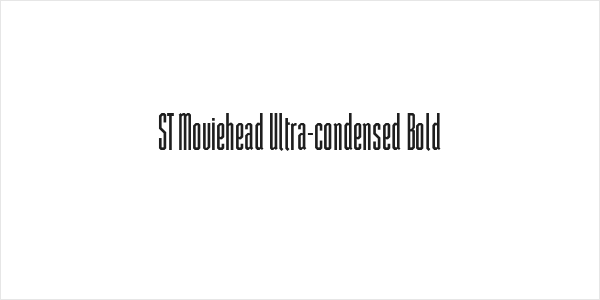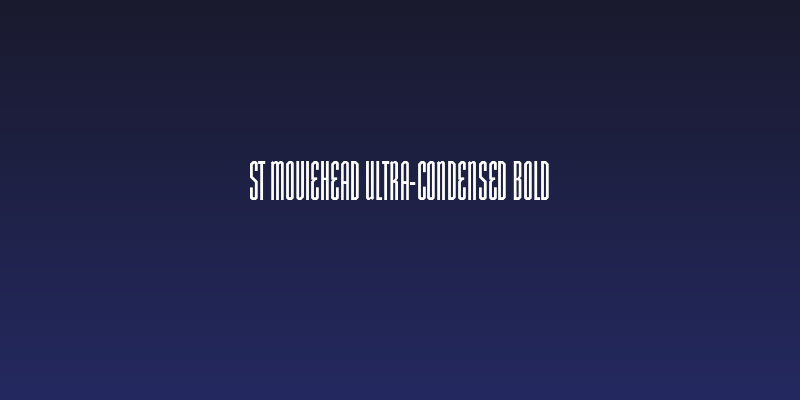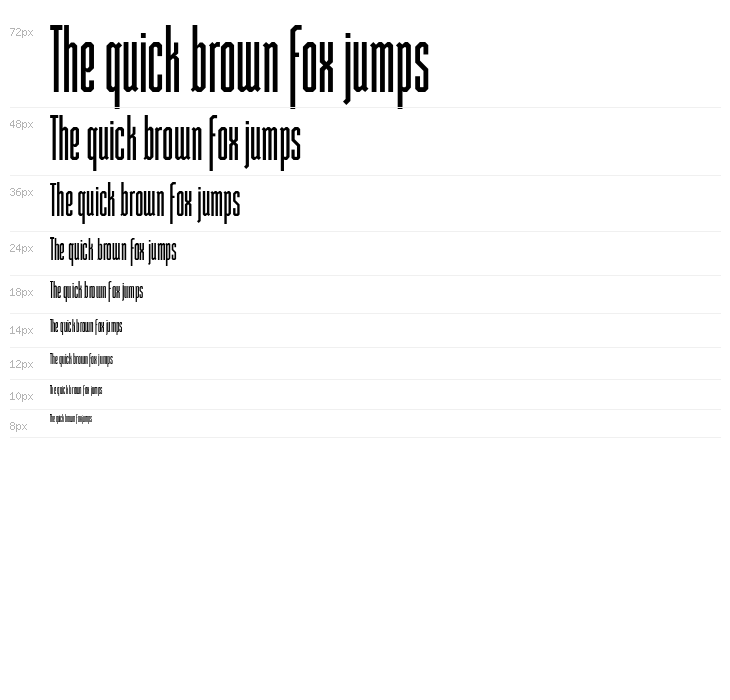
ST Moviehead Ultra-condensed Bold Font
ST Moviehead Ultra-condensed Bold Description
This font features an ultra-condensed style with bold, elongated letterforms that create a striking and impactful appearance. The vertical emphasis is pronounced, giving it a modern and sleek look. The uppercase and lowercase letters maintain a consistent height, contributing to its uniformity. The numerals and special characters are designed to match the overall aesthetic, ensuring cohesion across all elements. This font's unique style makes it suitable for attention-grabbing headlines and titles.
| Proposed Projects | Ideal for movie posters, magazine covers, branding, and advertising where a bold statement is needed. |